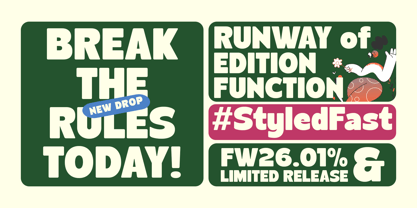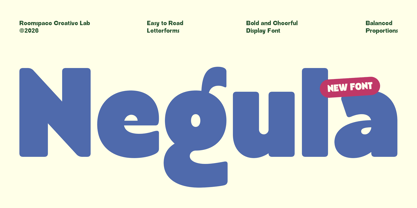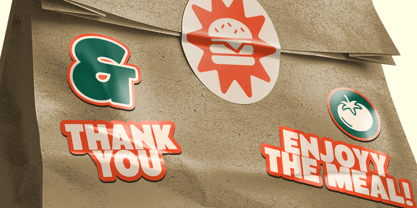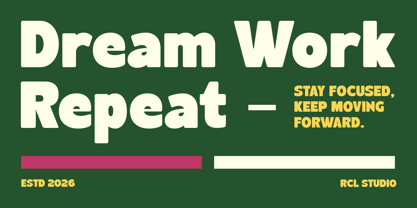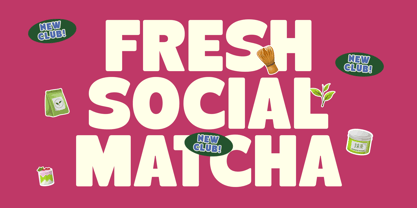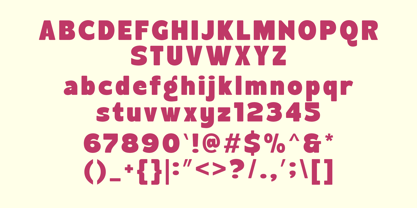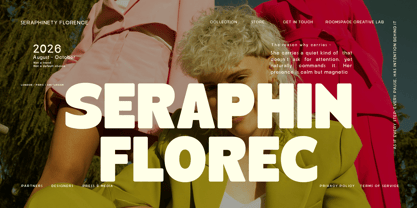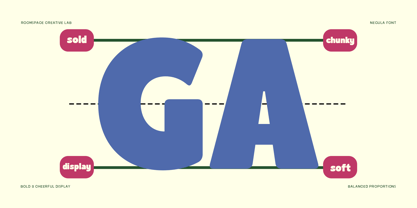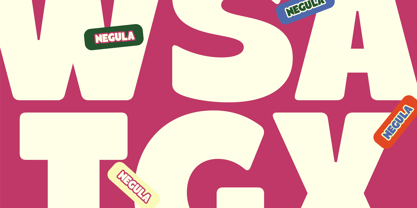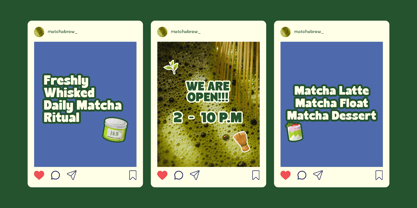
Negula
Negula is a bold rounded display font featuring soft curves, balanced proportions, and highly approachable letterforms. Designed for modern brands that want to appear welcoming and memorable, Negula works beautifully across packaging, logos, social media graphics, food branding, children’s products, and lifestyle campaigns. Its cheerful personality instantly creates emotional connection while maintaining excellent readability.
• Bold rounded display design
• Friendly letterforms
• Uppercase & lowercase
• Multilingual support
• Modern balanced proportions
• Display optimized spacing
A little from my personal design & background: My name is Bakhrudin Ja'far, I live in Malang, Indonesia. I am currently completing my degree in visual communication design and I have worked as a lettering artist and logo designer for many years. I finally started my studio called roocspace creative lab (jafar07) Studio a few months ago and with my team made my letters into typography.